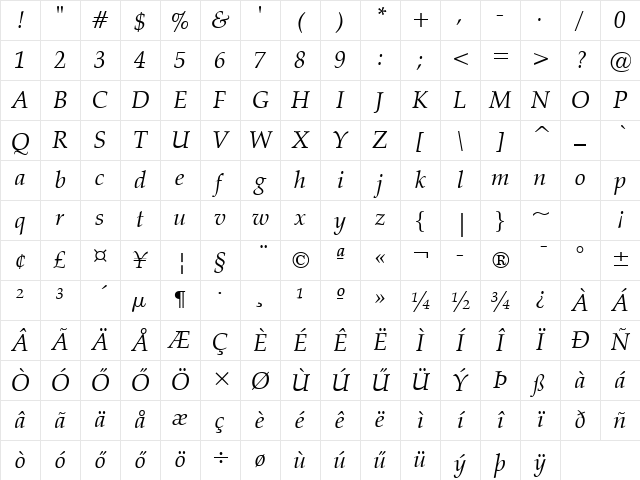
Huni_ZapfCalligr BT Italic Regular
Design Context for Huni_ZapfCalligr BT Italic
Huni_ZapfCalligr BT Italic is a composed and adaptable typeface that performs quietly and consistently across a wide range of design contexts. The slanted form adds forward momentum and visual energy.
Pro Tip: Use Huni_ZapfCalligr BT Italic for emphasis, pull quotes, and subheadings where its slanted energy can add rhythm to the layout.